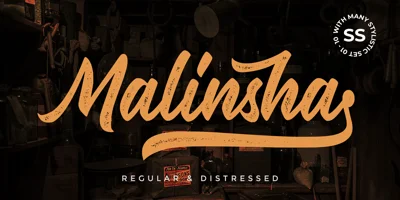
Malinsha Font
This delicate script font is perfect for feminine lifestyle branding, artisanal craft packaging, handmade product labels, boutique fashion signage, organic beauty campaigns, creative studio logos, artistic workshop materials, and charming design projects that celebrate handcrafted beauty and artistic expression.
Malinsha Font is exciting because it embodies artisanal charm with its hand-lettered aesthetic that feels lovingly crafted by skilled artisan hands. The font delivers authentic creativity while maintaining whimsical readability that speaks to the heart of handmade craftsmanship.
The Malinsha Font family includes regular and decorative versions with artisanal ornaments, creative flourishes, and handcraft symbols, providing designers with comprehensive tools for creating authentic typography that celebrates artistic expression and creative spirit.
Ready to craft something beautiful? Malinsha Font offers designers artisanal letterforms that flow with creative energy and handmade charm. This enchanting typeface combines craft aesthetics with professional functionality, making it ideal for artisan brands, creative studios, and handmade product companies. Whether you're designing craft fair promotions, artisanal product packaging, or creative workshop materials, this font delivers authentic appeal. The lovingly crafted characters feature handmade curves while maintaining excellent readability across artistic applications. Perfect for businesses in handmade crafts, artistic services, organic products, and creative education that celebrate authenticity and artistic expression. The font's artisanal construction creates memorable brand recognition that resonates with craft enthusiasts worldwide. Each letter showcases deliberate creativity that mirrors the beautiful imperfection of handcrafted artistry. Download today and handcraft success in your creative projects with this premium script font that transforms ordinary text into extraordinary expressions of artistic beauty and the authentic spirit of Malinsha Font craftsmanship.